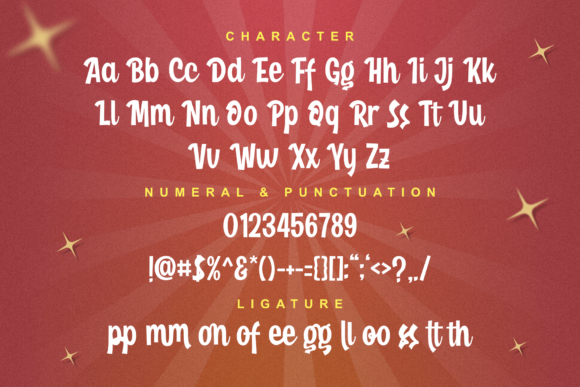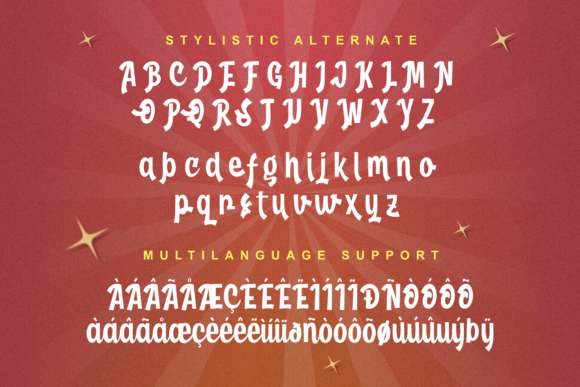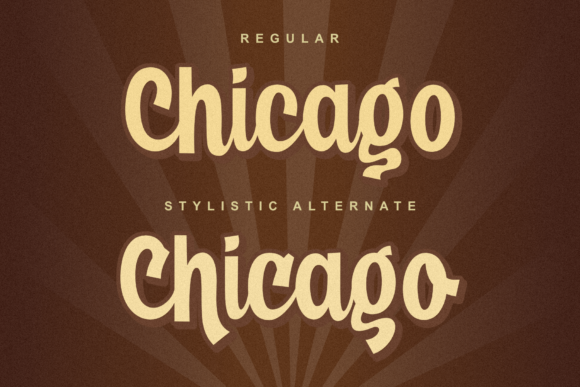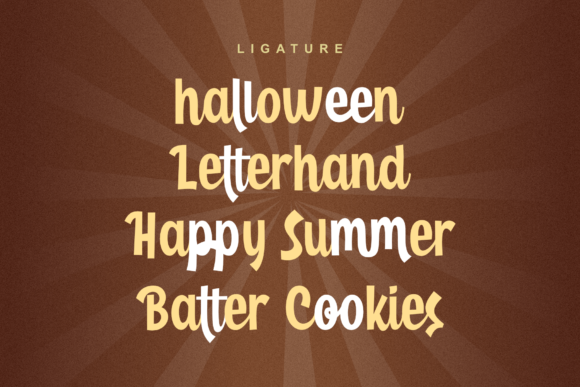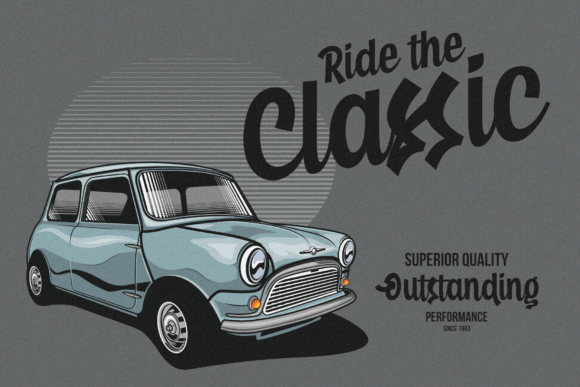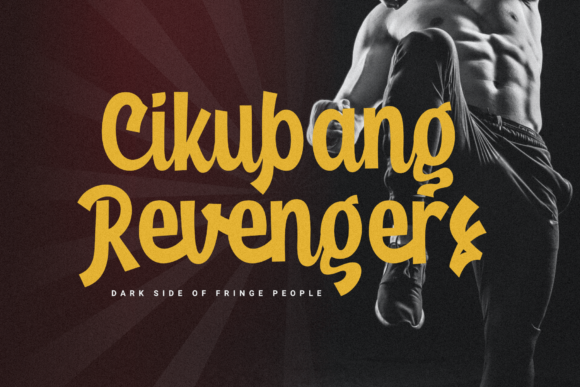
Farming Times Font: Elevate Your Creations with this Exquisite Handwritten Font
Are you a designer, crafter, or DIY enthusiast looking for a unique and stylish font to take your projects to the next level? Look no further than Farming Times Font, a beautiful handwritten font that’s perfect for adding a personal touch to your creations. In this article, we’ll explore the features and benefits of Farming Times Font, and show you how it can elevate your designs and crafts.
What is Farming Times Font?
Farming Times Font is a stunning handwritten font that’s designed to add a touch of elegance and sophistication to your projects. With its trendy and stylish aesthetic, this font is perfect for a wide range of applications, from crafting and scrapbooking to graphic design and digital art.
One of the standout features of Farming Times Font is its unique and exquisite design. Each letter and character has been carefully crafted to create a beautiful, flowing script that’s both easy to read and visually appealing. Whether you’re creating a handmade card, a scrapbook page, or a digital graphic, Farming Times Font is sure to impress.
Farming Times Font is PUA (Private Use Area) encoded, which means that you can access all of the glyphs and swashes with ease. PUA encoding allows designers and crafters to access a wide range of special characters and glyphs that can be used to add extra flair to their projects.
With Farming Times Font, you can easily access a range of glyphs and swashes, including:
- Alternate letters and characters
- Swashes and flourishes
- Special characters and ornaments
This means that you can customize your projects to your heart’s content, adding your own personal touch and style to each creation.
Benefits of Using Farming Times Font
So why choose Farming Times Font for your next project? Here are just a few benefits of using this amazing font:
- Elegant and sophisticated design: Farming Times Font has a beautiful, flowing script that’s perfect for adding a touch of elegance to your projects.
- Easy to read and use: Despite its elegant design, Farming Times Font is easy to read and use, making it perfect for a wide range of applications.
- PUA encoded for easy access to glyphs and swashes: With PUA encoding, you can easily access a range of special characters and glyphs to customize your projects.
- Perfect for designers, crafters, and DIY enthusiasts: Whether you’re a professional designer or a DIY enthusiast, Farming Times Font is perfect for anyone looking to add a personal touch to their projects.
| Author | DUMADI |
Farming Times Font is an exquisite and unique handwritten font that’s perfect for designers, crafters, and DIY enthusiasts. With its elegant and sophisticated design, PUA encoding, and ease of use, this font is sure to elevate each of your creations. Whether you’re creating a handmade card, a scrapbook page, or a digital graphic, Farming Times Font is the perfect choice. So why wait? Download Farming Times Font today and start adding a personal touch to your projects!